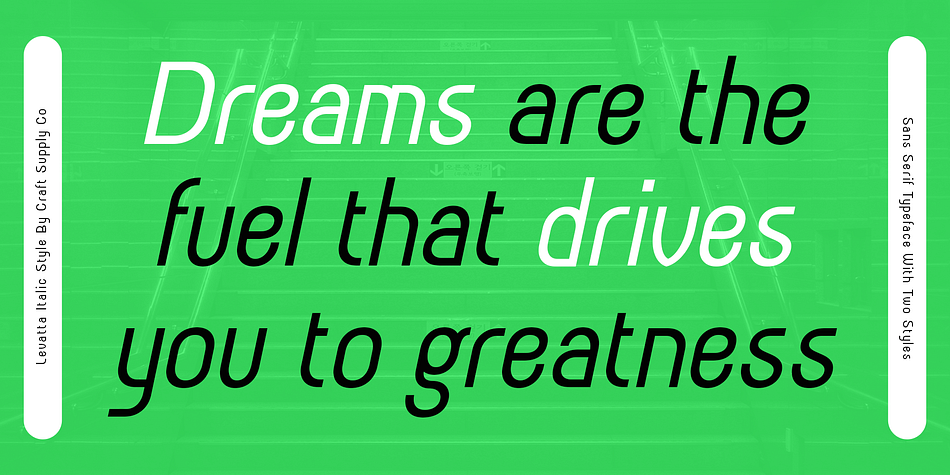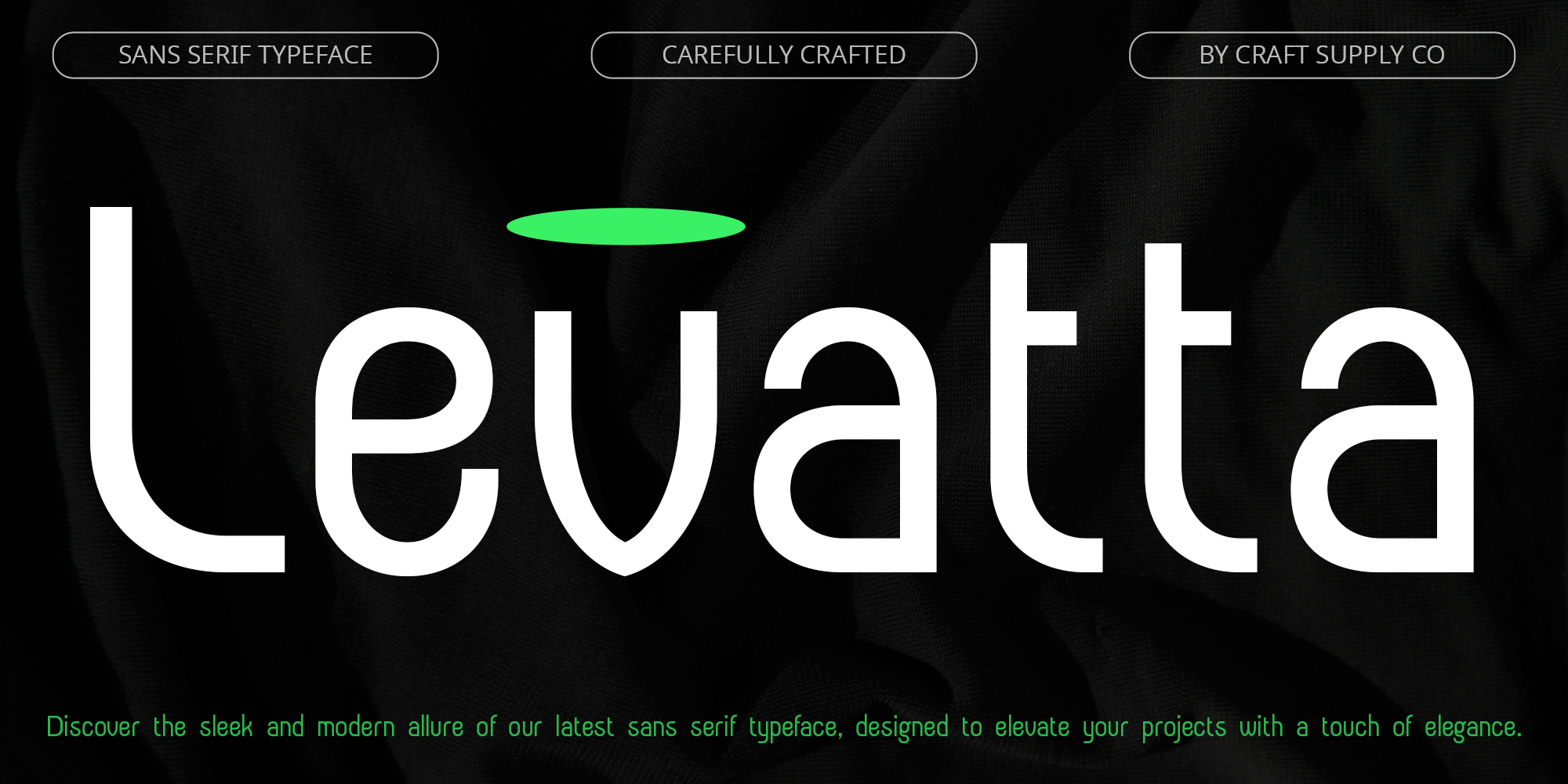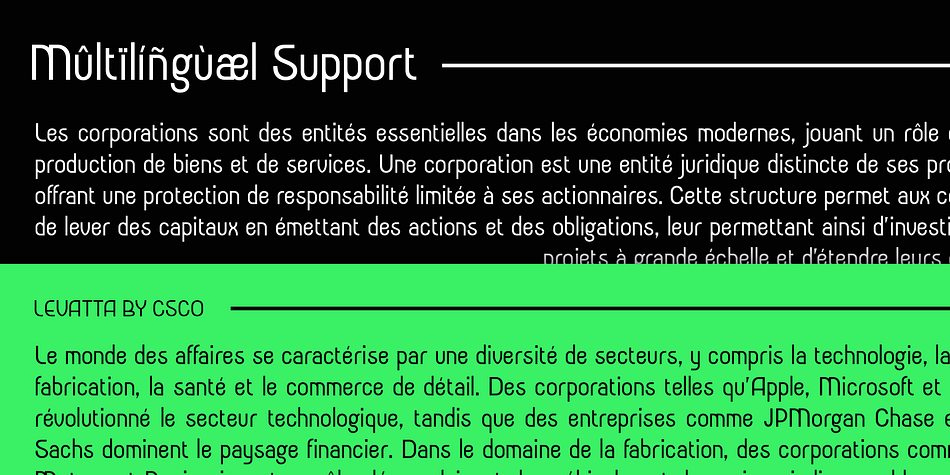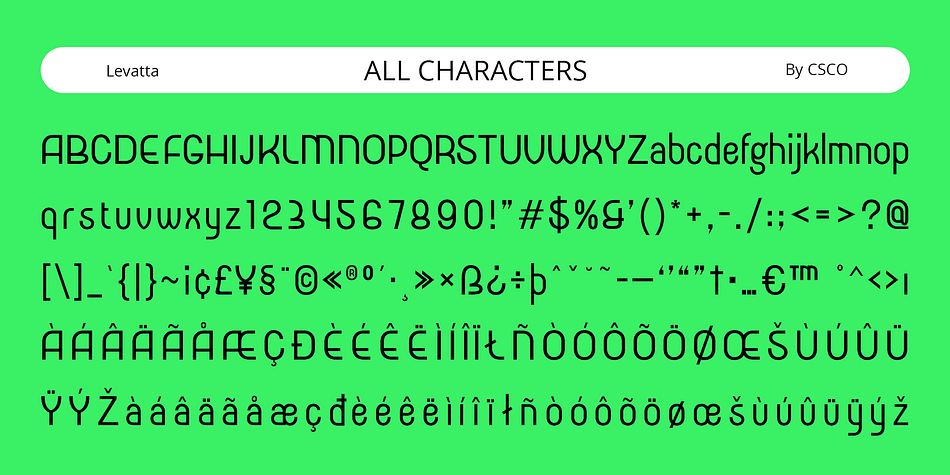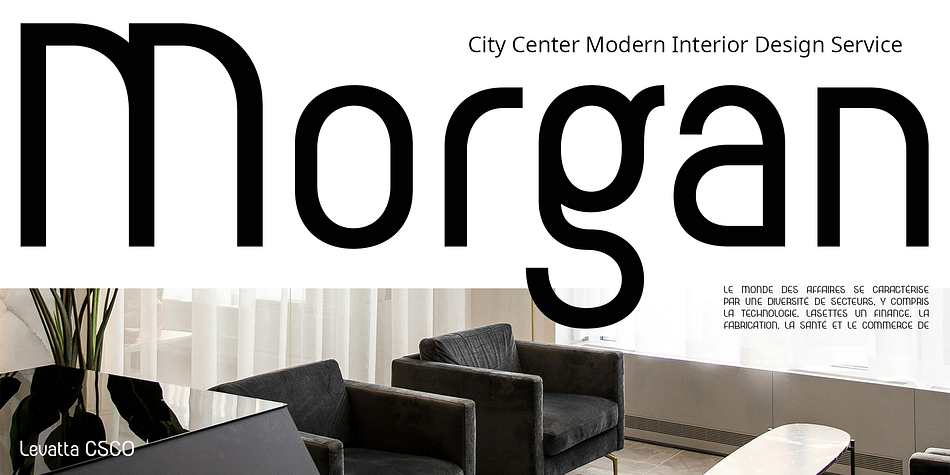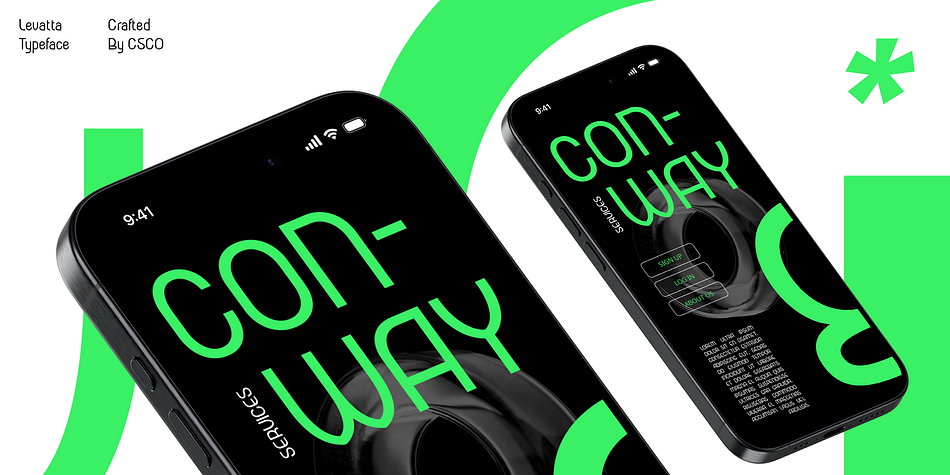
Levatta
Levatta is a sans serif font family. This typeface has two styles and was published by Craft Supply Co.
Levatta – Contemporary Sans: Redefining Professionalism with Elegance
Modern Sans-serif with an Elegant Form
Levatta Font is a modern sans-serif typeface that embodies elegance and sophistication. Its clean lines and refined details make it perfect for professional use, adding a touch of modernity to any design.
Ideal for Professional Use
Designed with professionalism in mind, Levatta Font is ideal for corporate branding, editorial layouts, and other projects that require a polished appearance. Its elegant form ensures that your message is conveyed with clarity and style.
Versatile and Stylish
Despite its modern design, Levatta Font is versatile and stylish. Whether used for headlines, body text, or branding, its contemporary sans-serif style adds a touch of sophistication to any project.